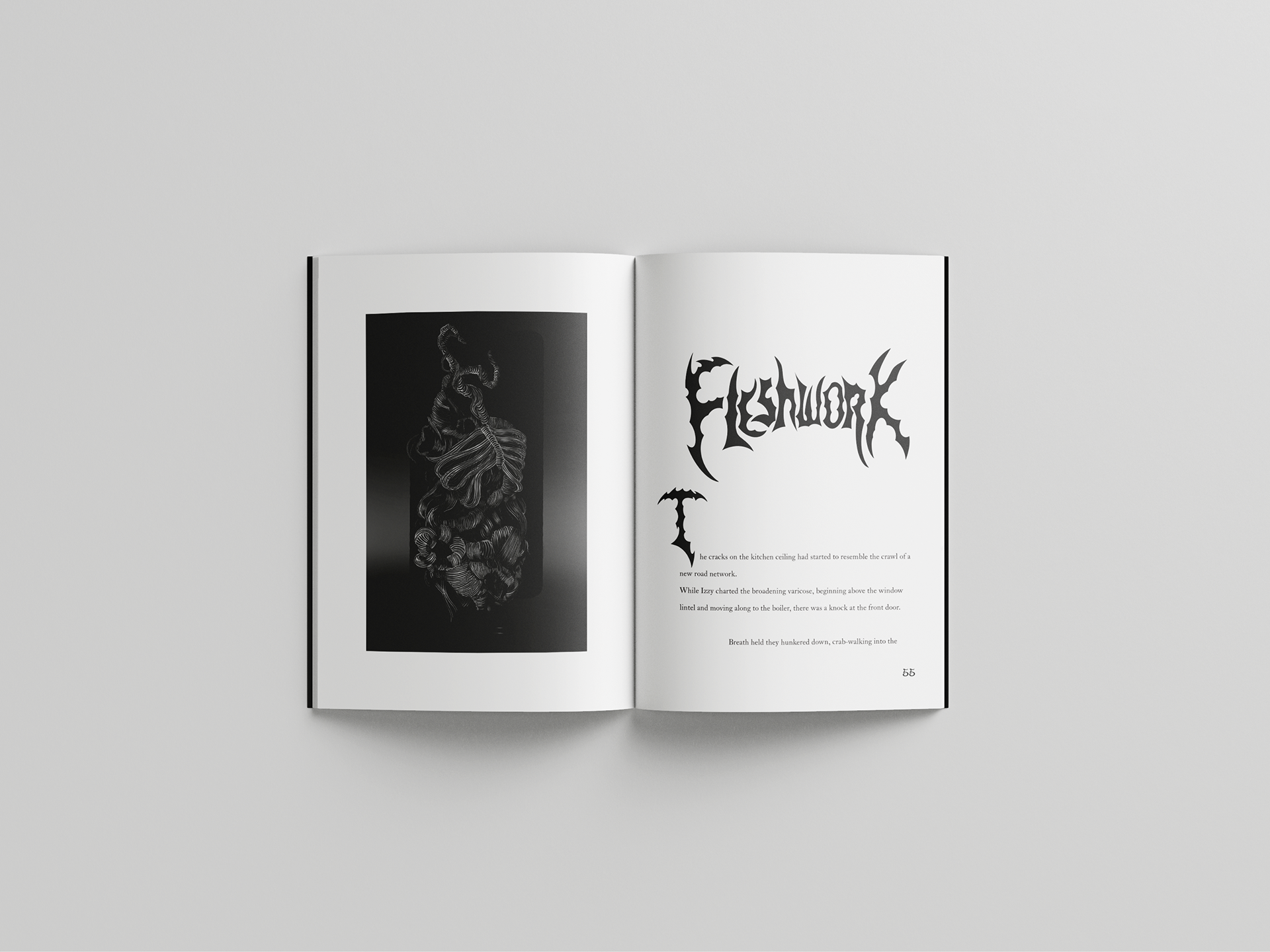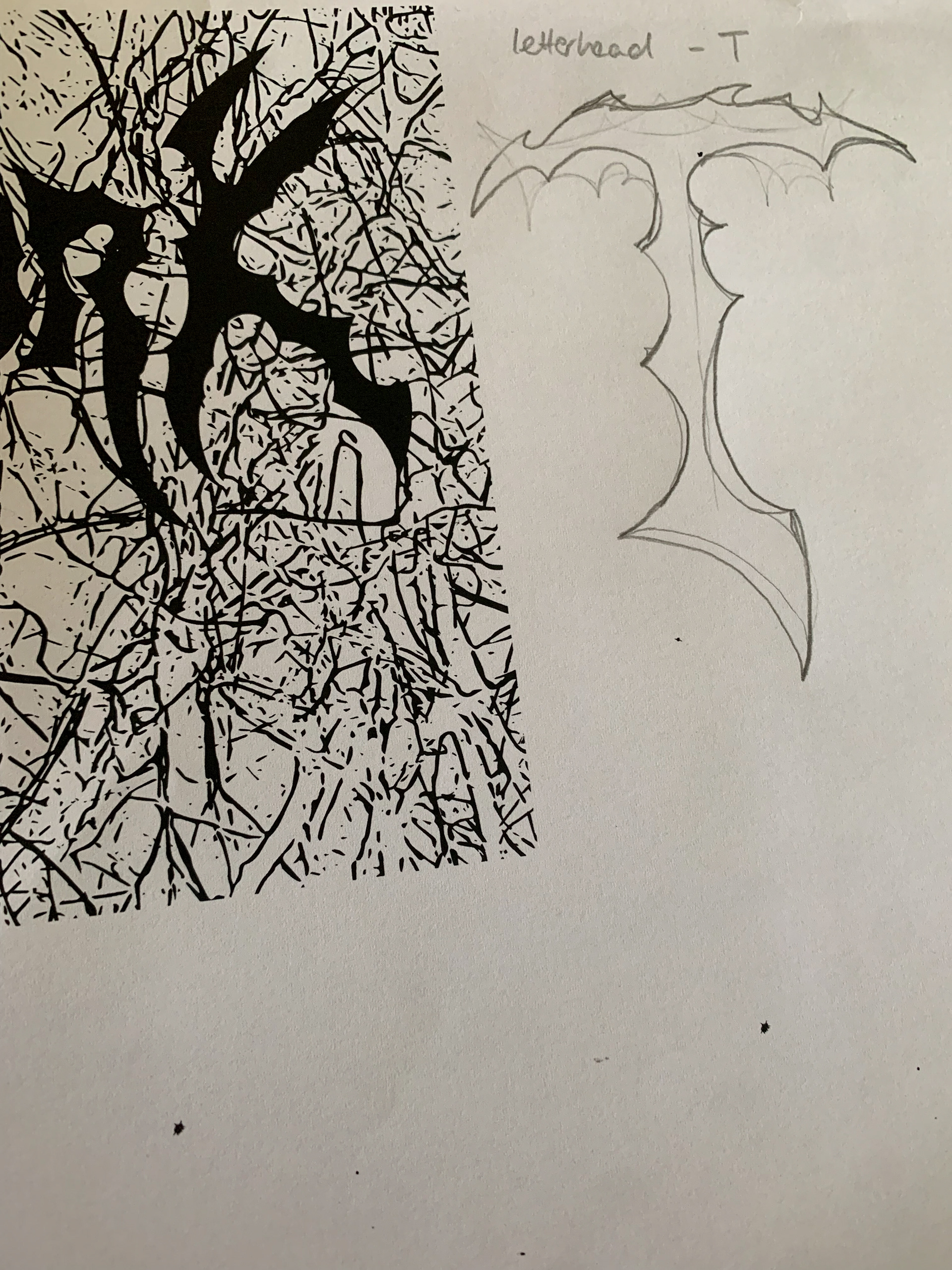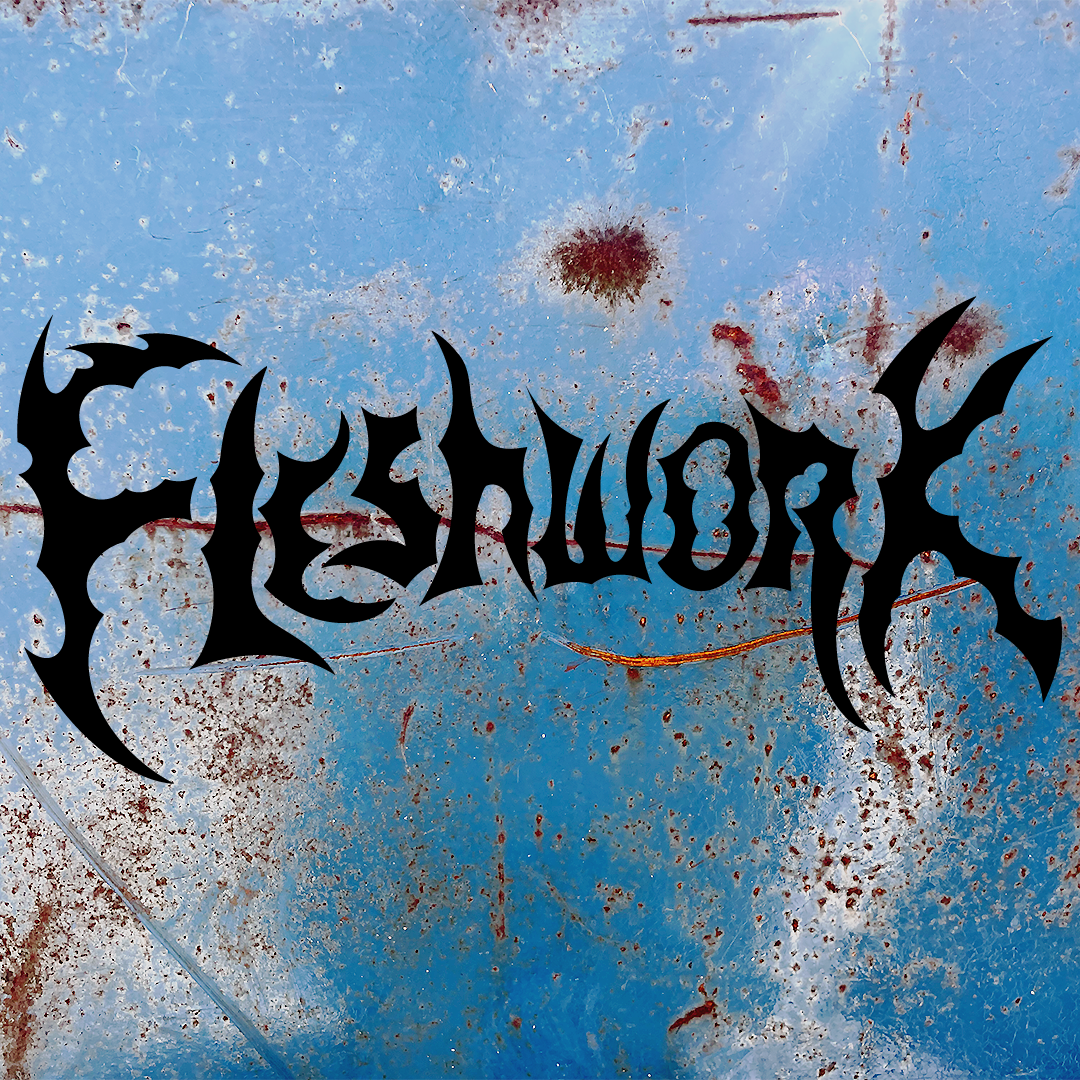
Fleshwork title with rust textured background photographed by me.
Fleshwork pencil sketch.
Sketch of letterhead beside early print test of title.
Inspiration pictures from brief.
Fleshwork, a custom hand lettered short story title and letterhead for 'Micronised' by Aria K.C. Accompanying artwork on left page by Sen, @Guro_Doll on instagram